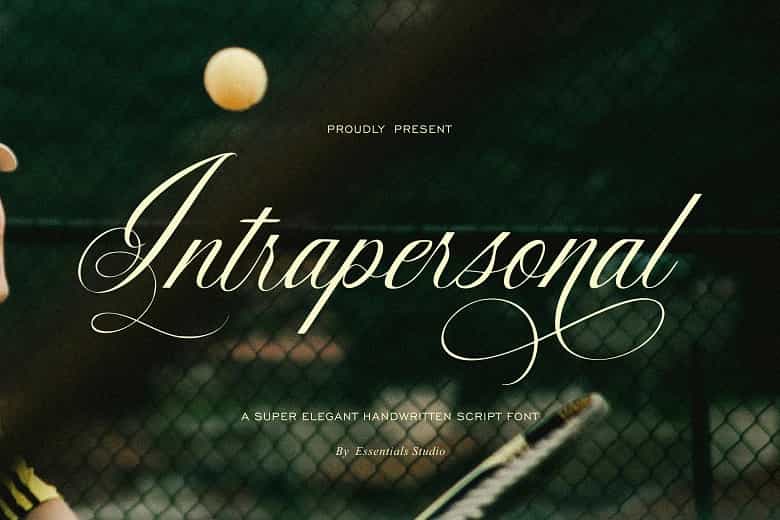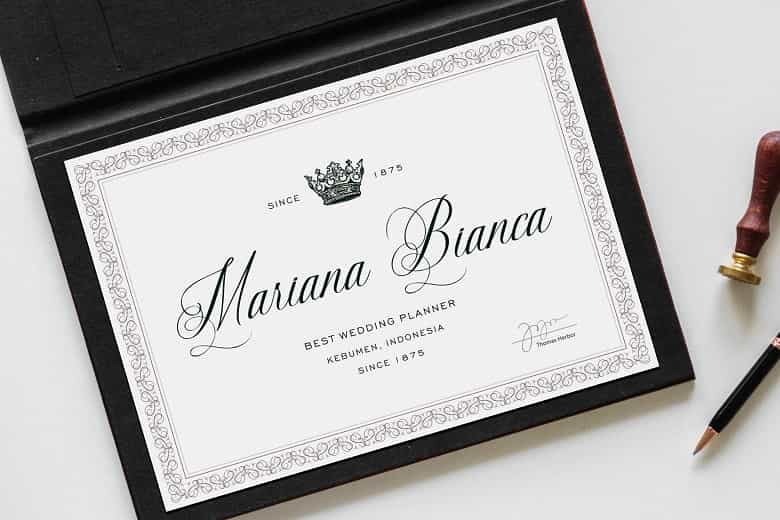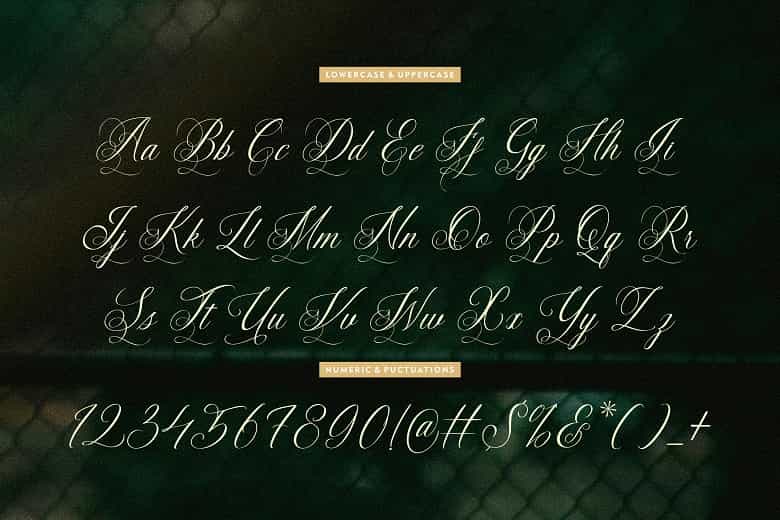
Interpersonal is a super elegant calligraphy script font designed by the Essentials Studio and this font family can be great for scripts. Each element of the design is aimed at embodying a form of sophistication that is only characteristic of the design. Revamped for uses which are not conventional, Interpersonal is best used in branding, logo creation, and wedding invitations.